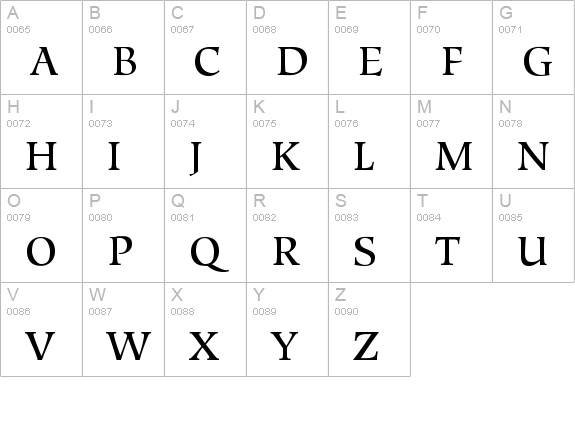
Hiroshige Std Medium is a balanced, medium-weight variant in the Hiroshige typeface family \xE2\x80\x94 well suited to sub-headlines, navigation, and balanced editorial work.
Hiroshige Std Medium font is a modern and versatile typeface that beautifully combines traditional Japanese aesthetics with contemporary design elements. With its elegant strokes and clean lines, this font is perfect for a wide range of design projects, from branding to editorial design. What sets Hiroshige Std Medium font apart is its unique blend of sophistication and simplicity, making it suitable for both formal and informal applications. Whether you're looking to create a sleek logo, eye-catching headlines, or stylish packaging, this font has you covered. Best of all, Hiroshige Std Medium font is available for free download at FontsMarket.com. So go ahead and add this stunning typeface to your collection today and elevate your designs to the next level!